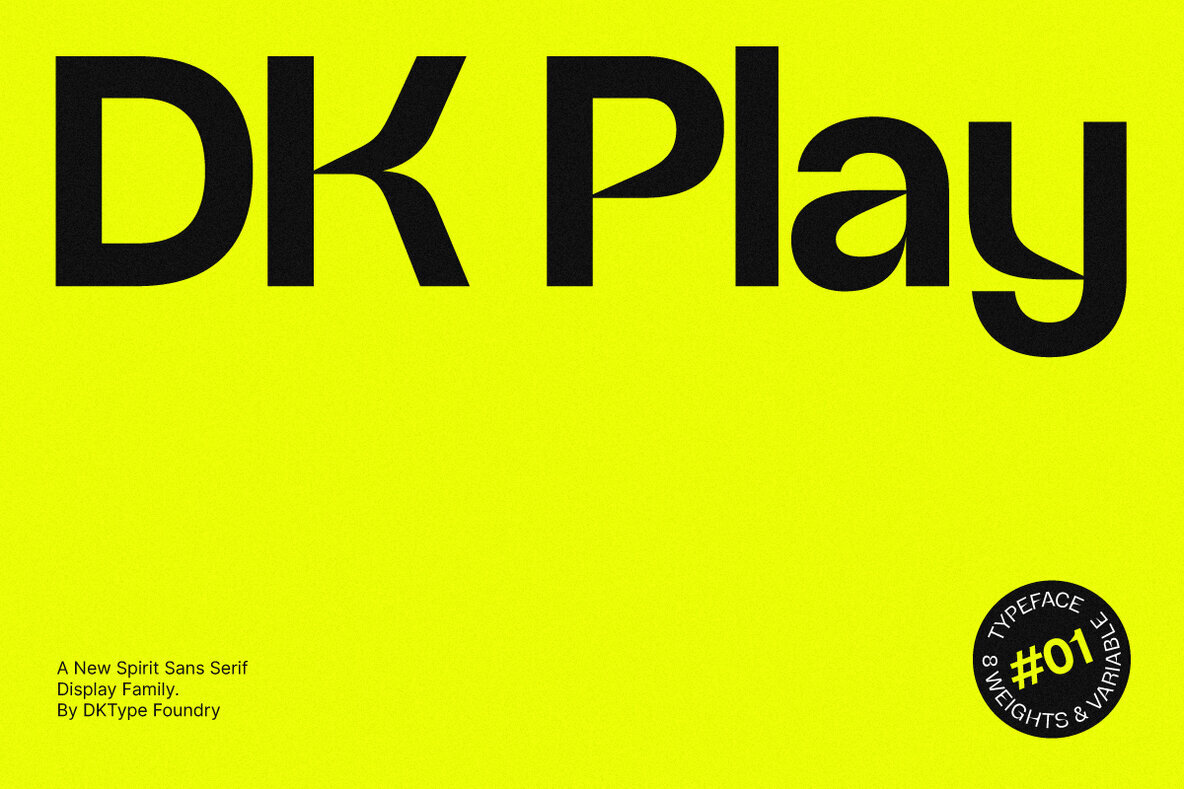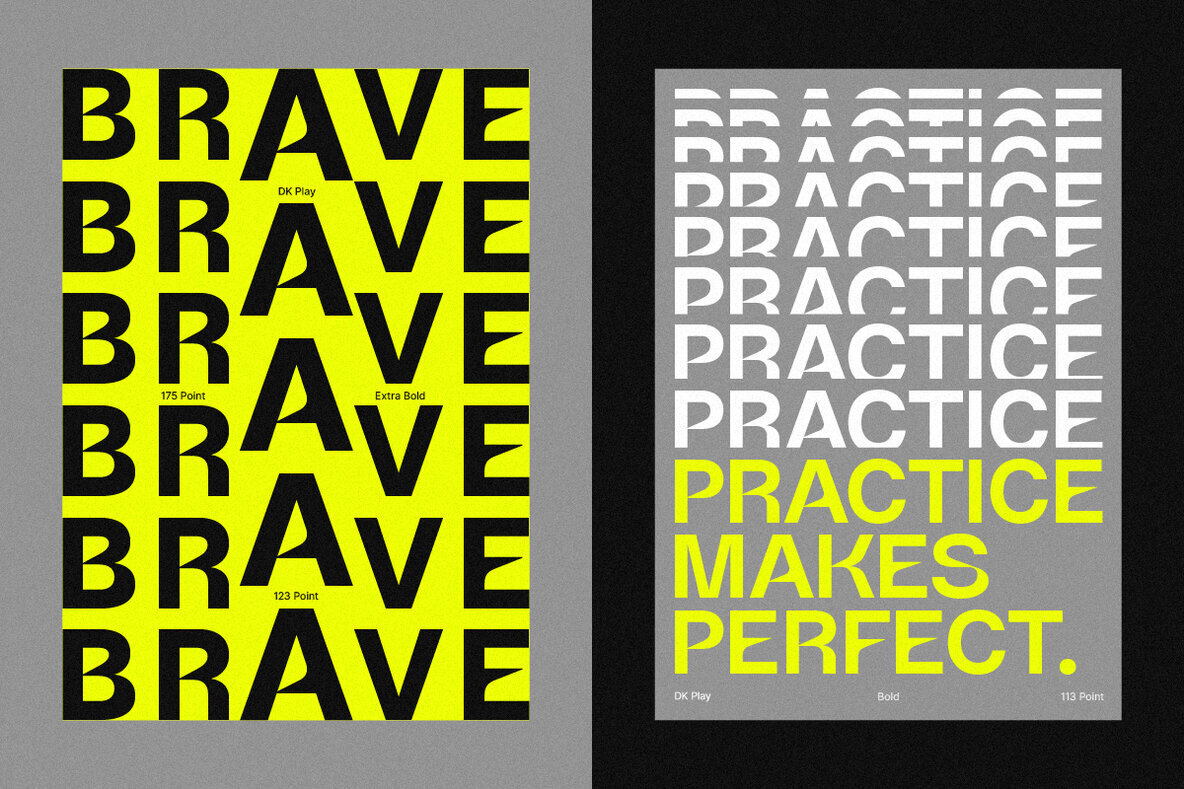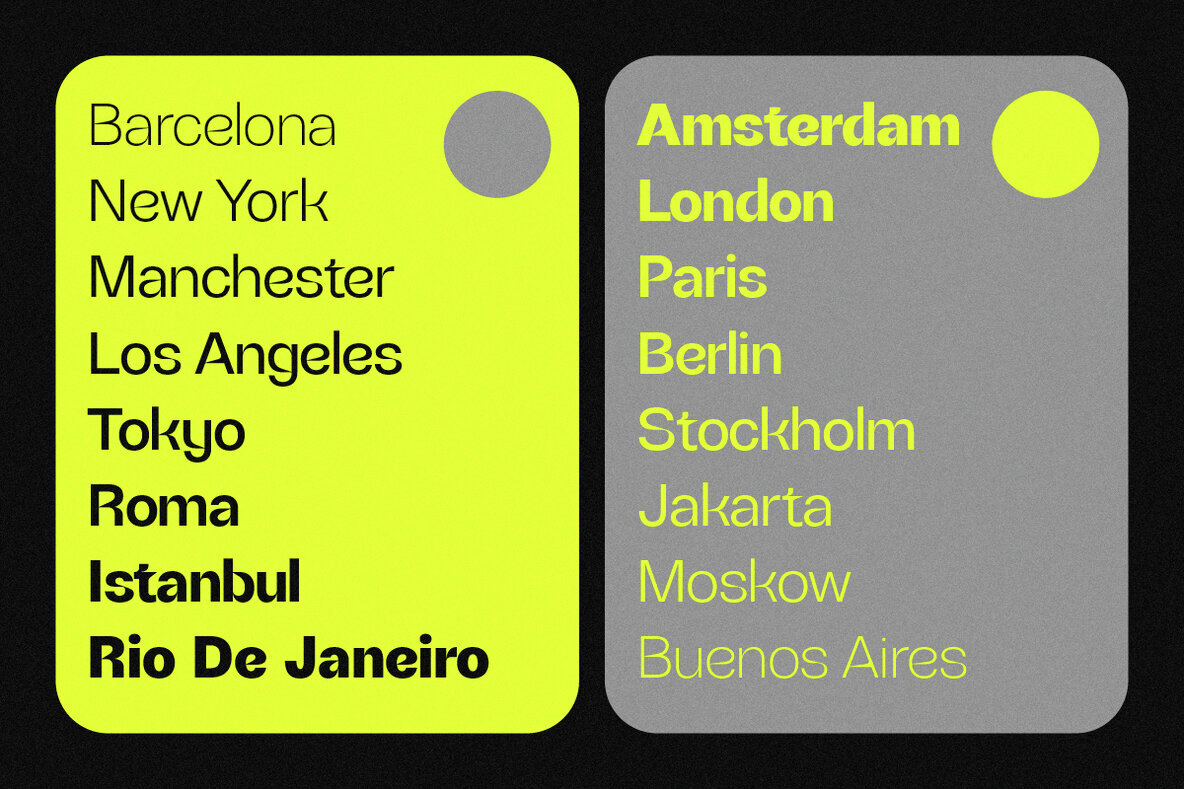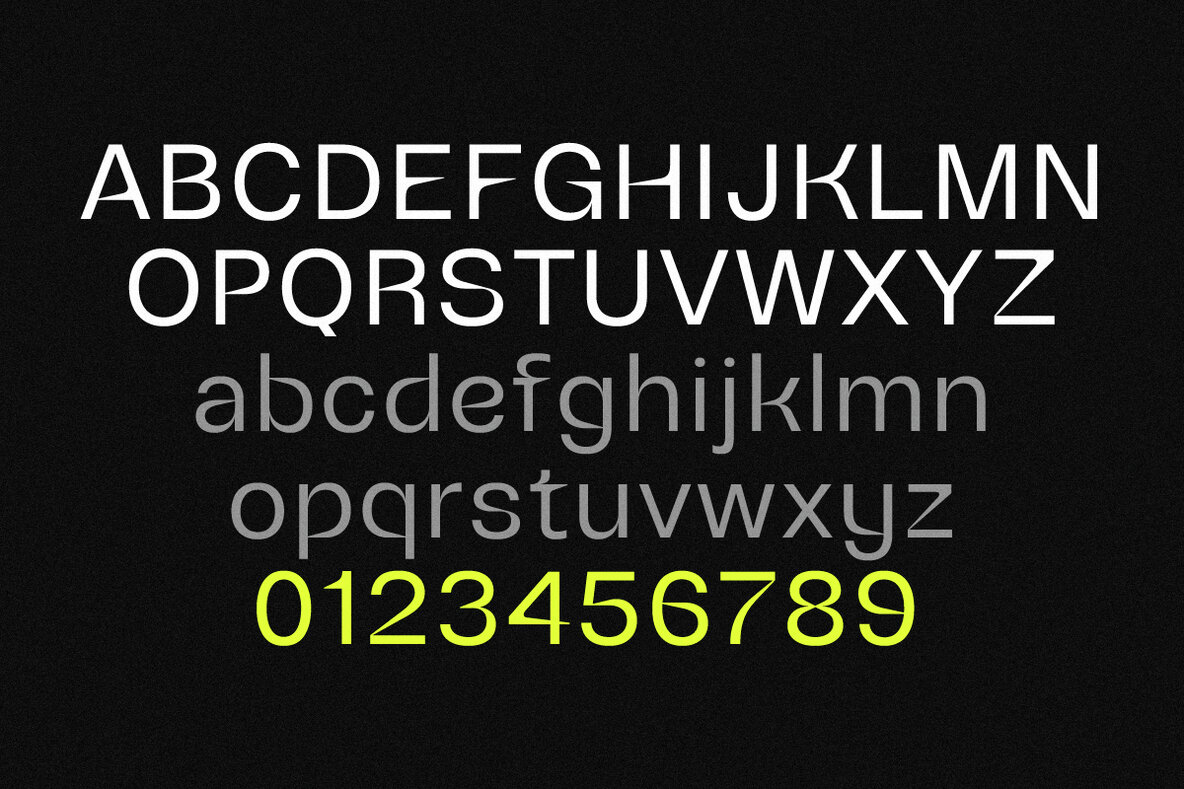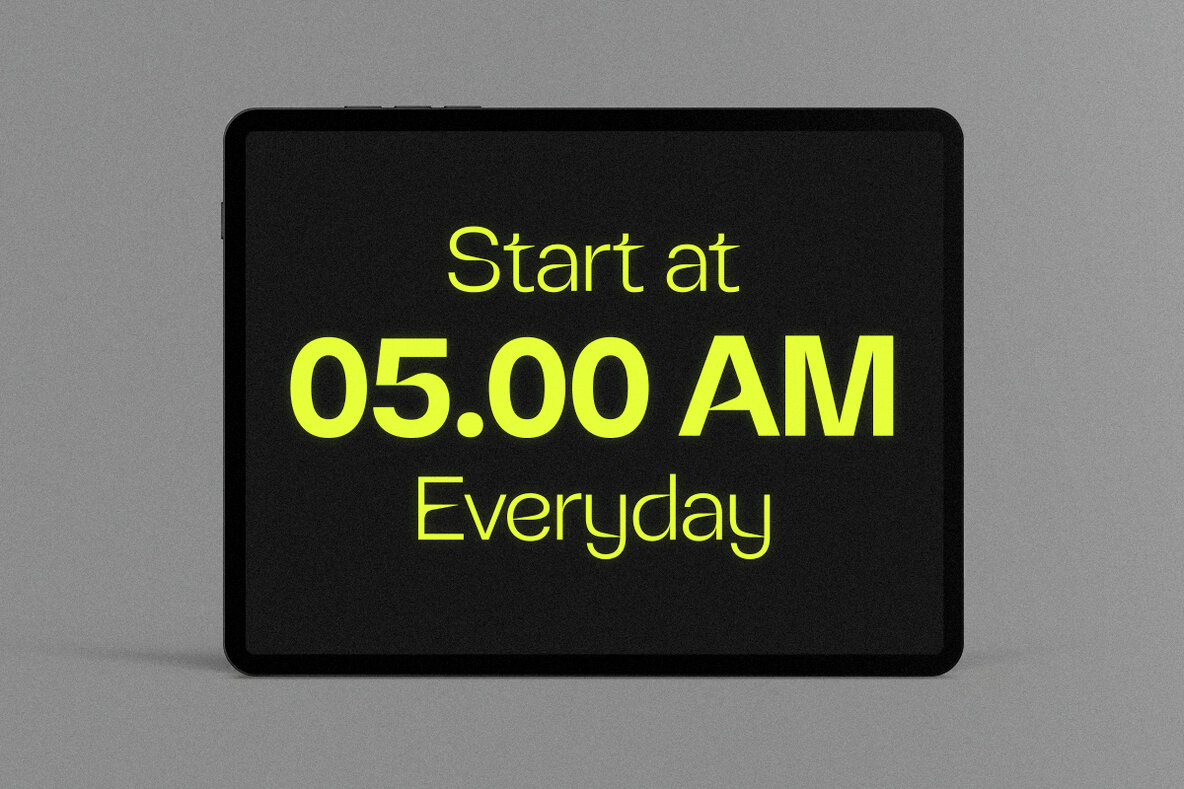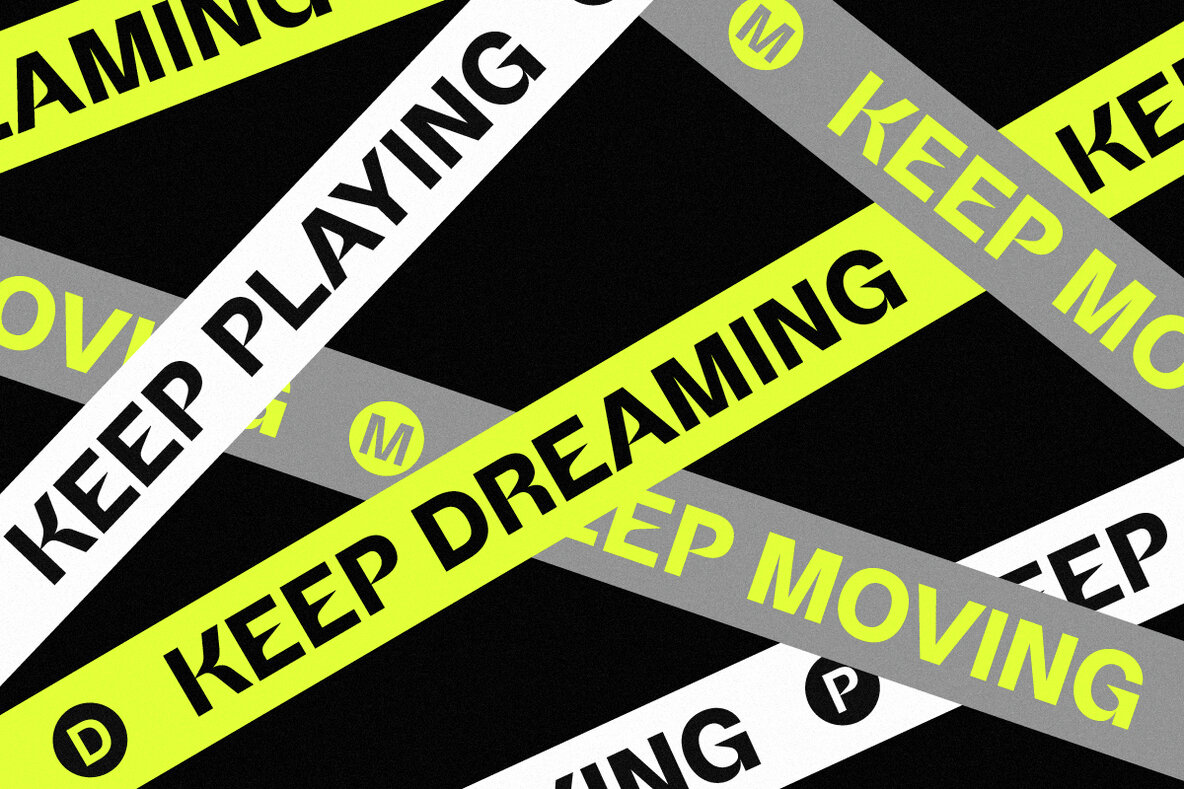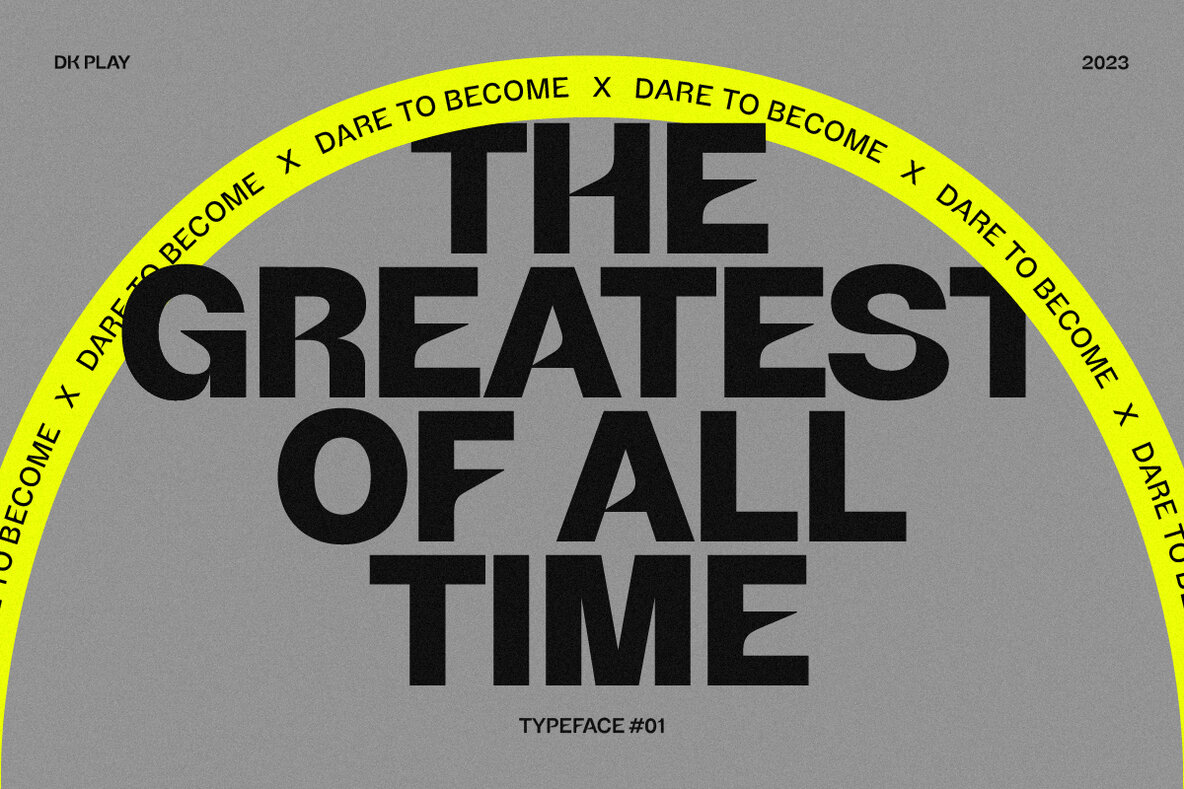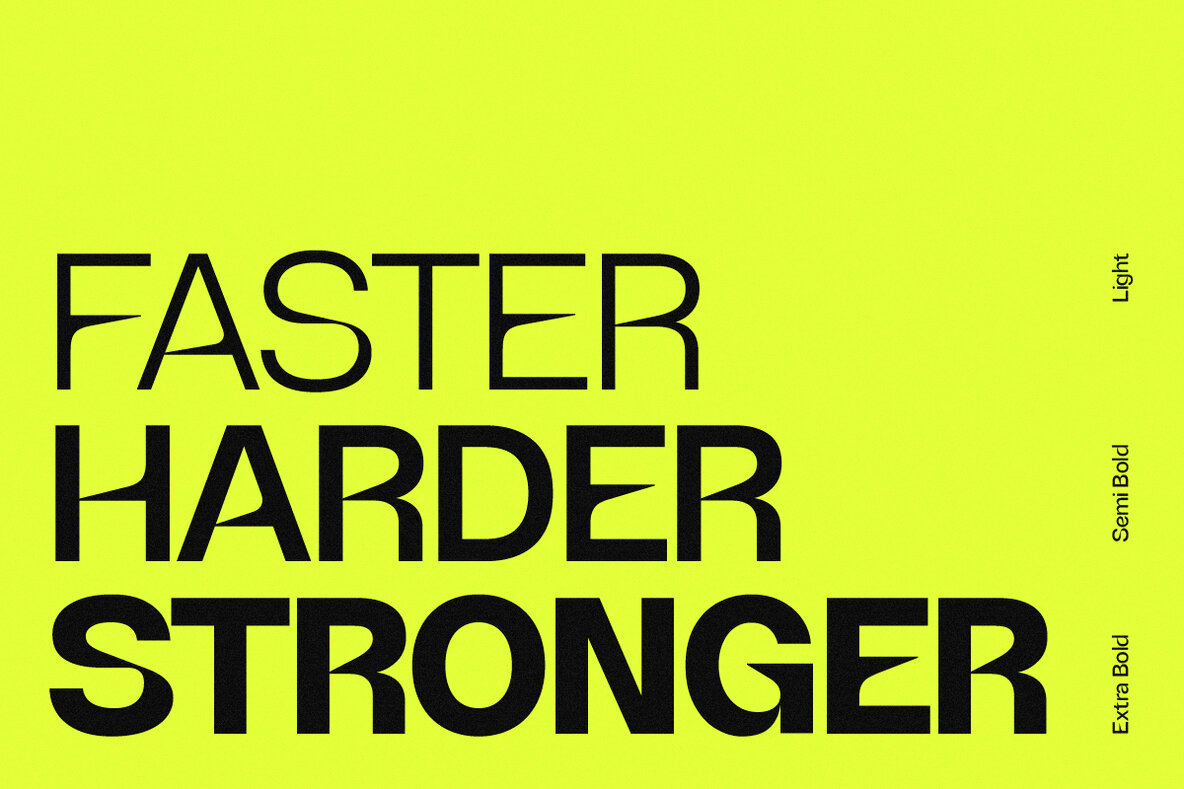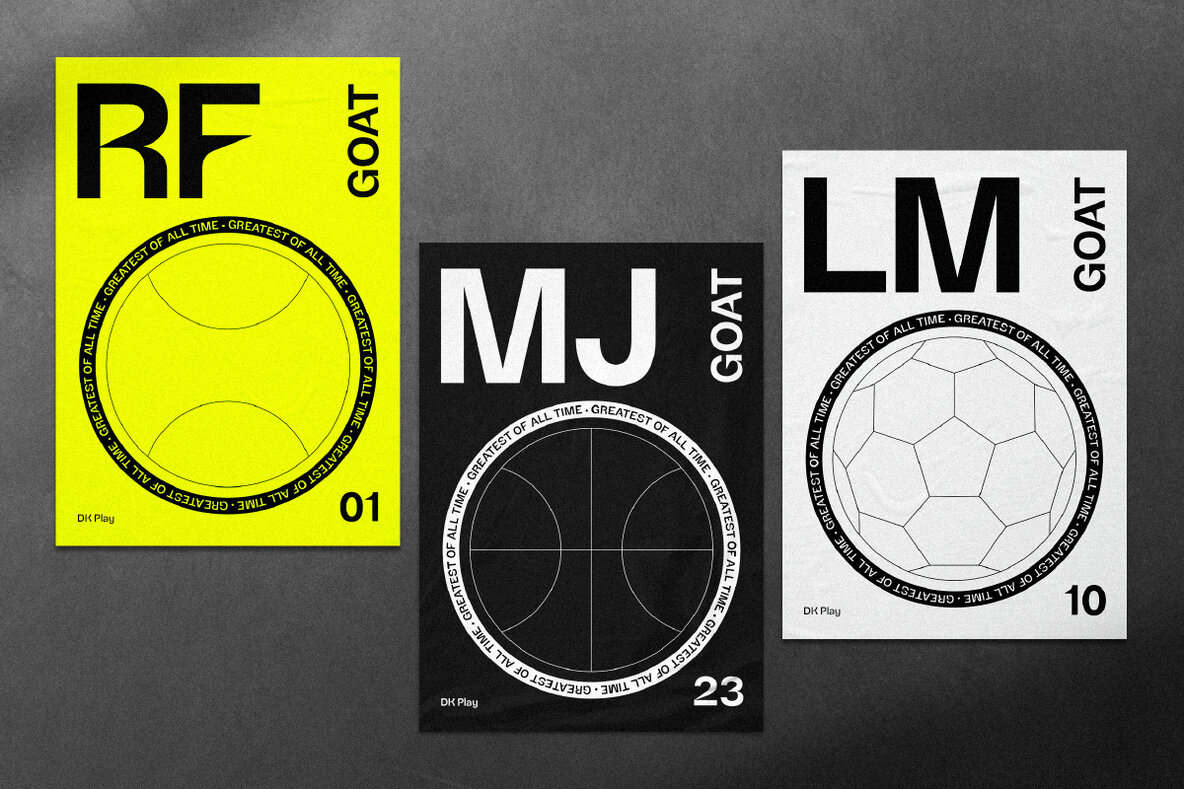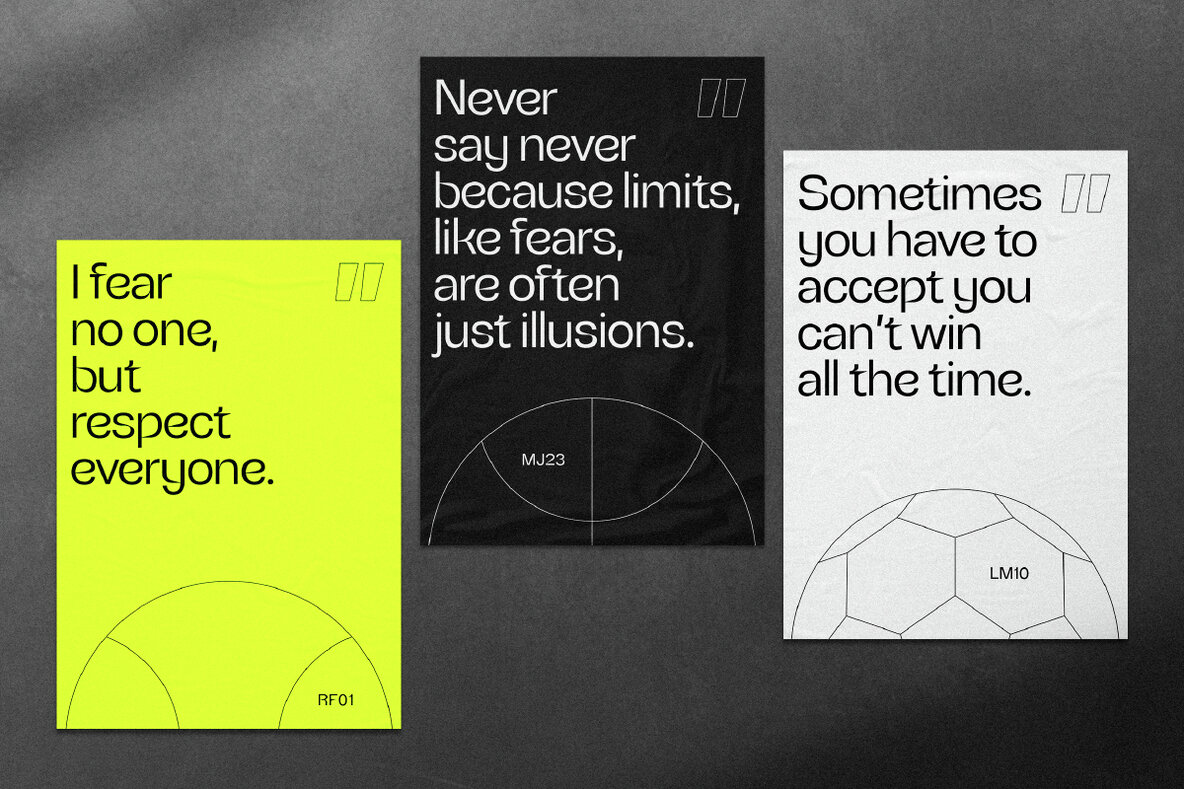
DK Play Font
Created by Darman Kadir, DK Play is a sans-serif typeface offering a modern twist on iconic Swiss typography. Drawing inspiration from renowned classics such as Helvetica, this design emerges as a robust alternative for amplifying sports and apparel visuals. Its bold aesthetic ensures a striking presence, catering to environments where dynamic energy is essential.DK Play: A Dynamic Sans-Serif for Sports Aesthetics